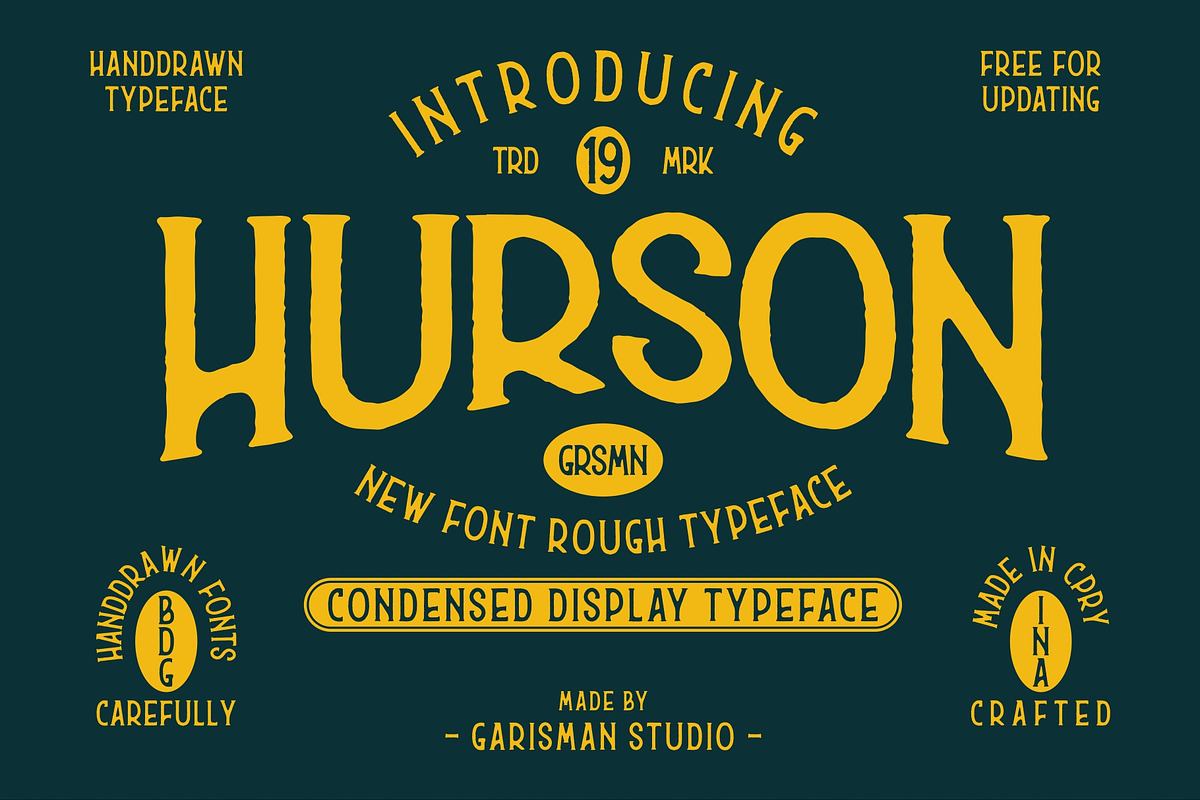
Rustic, bold, and full of character, Hurson Rough Font - Serif Free Download is a textured serif typeface that brings a handcrafted feel to your designs. With its slightly distressed edges and vintage charm, this font is perfect for branding, logos, retro posters, packaging, and editorial layouts that need a touch of authenticity.
Hurson Rough combines classic serif structure with a rugged, worn-in look that makes your text stand out with personality and depth. It's a fantastic choice for designers who want to evoke a sense of nostalgia while keeping things stylish and readable.